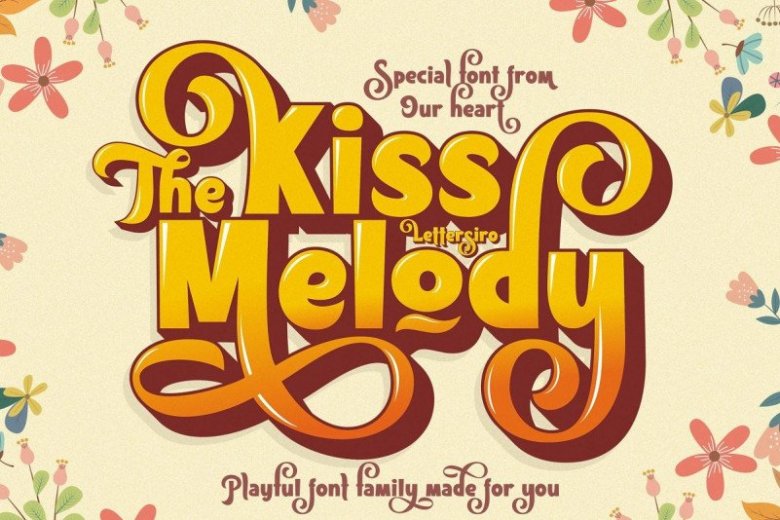
Kiss Melody Font
Kiss Melody Display Font is a modern sans serif typeface. Inspired by late Renaissance-era type and intended for display font manufactured by Lettersiro. From stylistic alternate to stylistic set 09. Kiss Melody perfect for large design project like logo , poster, fashion, custom sticker, music, magazine, and many others.
Just use your creativity when combining the characters to get the best combination’